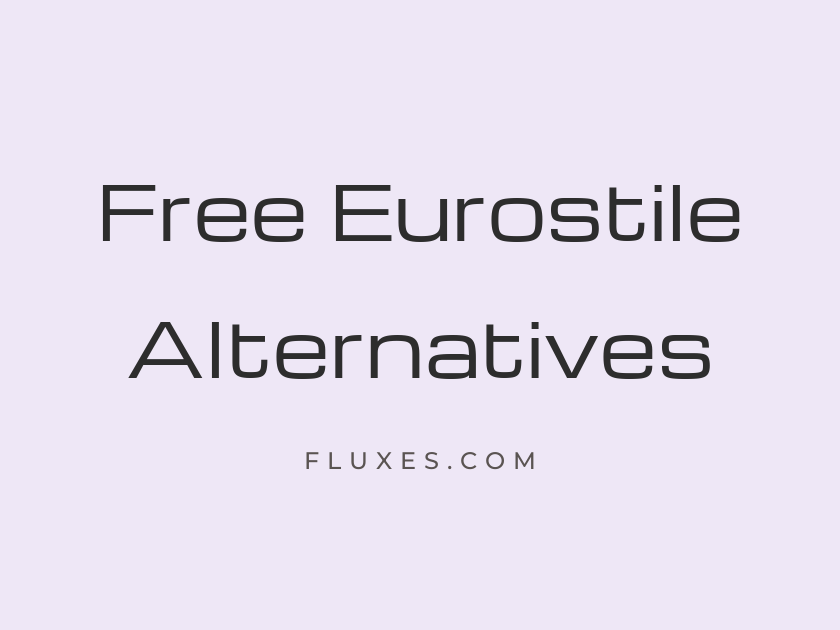
15 Best Free Fonts Alternatives to Eurostile
Eurostile has been the shorthand for technical, machine-age design since the 1960s, its squared bowls and half-rounded corners showing up on control panels, spaceship dashboards, and corporate logos alike. Finding a free alternative means looking for that same geometric confidence: letterforms built from circles and squares rather than humanist curves, with an engineered, unemotional feel. Google Fonts has developed a genuinely strong bench of these technical sans options over the past decade, several of which now stand in comfortably for licensed Eurostile in branding, UI, and sci-fi themed design work.
1. Michroma
Michroma is probably the single closest match to Eurostile’s DNA on Google Fonts: wide, squared letterforms with that same flattened-circle geometry. It only comes in one weight, uppercase-leaning in feel even though lowercase exists, which makes it best reserved for logos, headers, and short technical labels rather than running text.
2. Aldrich
Aldrich channels the retro-futurism of 1960s space-age branding, with rounded-square terminals and a slightly mechanical rhythm to its spacing. It reads like something stenciled onto a control console, which makes it a natural pick for gaming, aerospace, or sci-fi themed identity work.
3. Orbitron
Few free fonts lean harder into the geometric-futuristic space than Orbitron. Its caps are built almost entirely from straight lines and perfect arcs, giving it a synthetic, HUD-display quality that works well at large sizes but can feel gimmicky in long stretches of text. Use it sparingly, for titles and short interface labels, where its novelty reads as intentional rather than overdone.
4. Electrolize
Electrolize is quieter than its name suggests, a squared grotesque with tighter proportions and better lowercase manners than most fonts in this category. It holds up reasonably well in body copy for technical documentation or product specs, which is where it distinguishes itself from flashier display-only alternatives.
5. Share Tech
Built with a slight monospace echo despite being proportional, Share Tech has an understated, workmanlike character that suits dashboards, code-adjacent branding, and technical documentation. It never tries too hard, which makes it a dependable workhorse rather than a showpiece.
6. Zen Dots
Zen Dots pushes the squared-circle geometry to a chunkier, more playful extreme, with thick strokes and rounded corners that feel closer to a badge or app icon than a control panel readout. It is a display-only font best kept to logotypes, app names, or short punchy headlines.
7. Audiowide
There is a distinctly retro-arcade, motorsport energy to Audiowide, its wide rounded-square letters recalling 1980s video game logos and racing liveries. It pairs well with a plainer body font and works best when given plenty of letter spacing to breathe.
8. Rajdhani
Rajdhani softens the squared-off geometric approach just enough to be usable across a full interface, from headlines down to labels and buttons. Originally designed with Devanagari support in mind, it has grown into one of the more versatile technical sans families on Google Fonts, with a wide weight range that few other Eurostile alternatives can match.
9. Titillium Web
Titillium started as a collaborative type design project with an academic background, and it shows in how disciplined and legible it stays at small sizes. Its slightly squared apertures and confident weight contrast give it a genuinely engineered feel without sacrificing readability, making it one of the few fonts here suited to full paragraphs of body text.
10. Exo 2
Exo 2 offers a broad, well-built family with a geometric, slightly squared structure that feels contemporary rather than nostalgic. Its generous weight and width range makes it easy to build an entire visual system around, from bold display headlines to lighter supporting text.
11. Oswald
Oswald trades Eurostile’s rounded corners for something more condensed and civic, drawing on Chicago’s industrial signage heritage. It brings a blunt, structural presence to headlines and works particularly well where the brief calls for something rugged rather than sleek.
12. Space Grotesk
Space Grotesk takes the geometric grotesque idea and gives it a more contemporary, slightly warmer edge, making it one of the most flexible fonts on this list for pairing with body copy. It lacks the overtly squared bowls of true Eurostile but compensates with genuine usability across web and product design.
If the project needs genuine readability across a full interface, lean toward Rajdhani, Exo 2, or Titillium Web rather than the purely decorative choices.
None of these fonts are a pixel-for-pixel clone of Eurostile, since its exact squared geometry is proprietary, but together they cover the same technical, industrial, and retro-futuristic territory it made famous. Testing a few side by side in an actual layout is the fastest way to find the one that matches the tone of a given brand or interface.